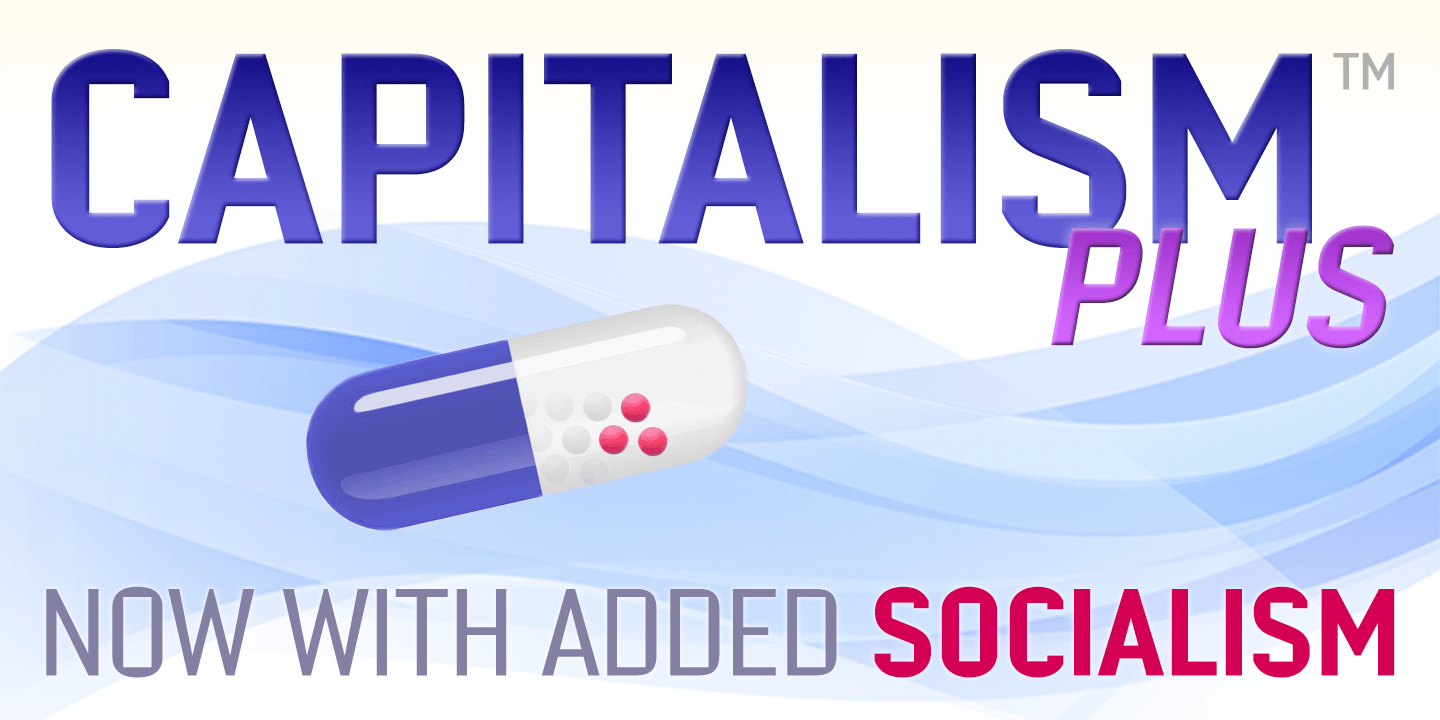
About Argot
Argot is inspired by condensed grotesque letterforms and would be a monolinear sans except for an unorthodox disparity between inner and outer shapes. Elegantly curved outlines contrast starkly with austere rectangular counters, suggesting a no-frills…